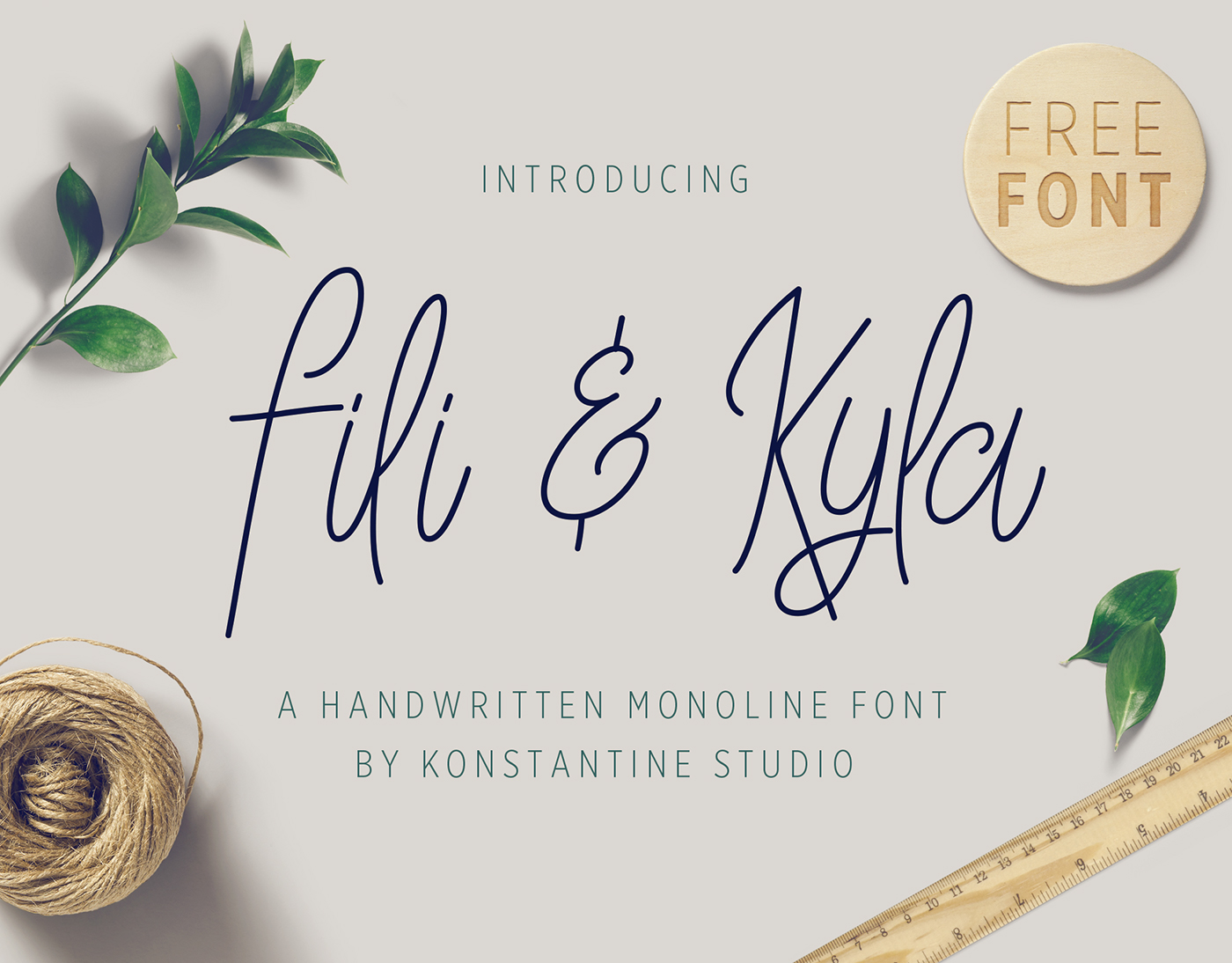
Its been a while since our latest FREE FONT giveaway, and today is the day again my friend. Please welcome, Fili & Kyla. A handwritten monoline feminine script font by yours truly. Perfectly fit for your vintage casual branding things, feminine and beautiful logo type, handcrafted stuff, etc.